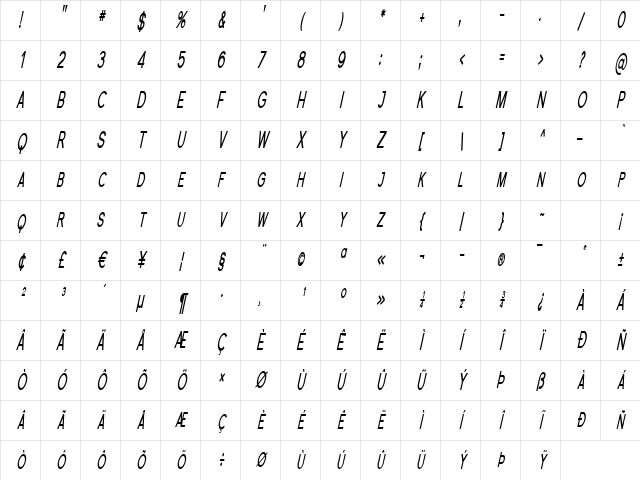
Florencesans SC Comp Bold Italic
Design Context for Florencesans SC Comp
Florencesans SC Comp is a composed and adaptable typeface that performs quietly and consistently across a wide range of design contexts. The slanted form adds forward momentum and visual energy. Its bold stroke weight gives it real presence on the page.
Pro Tip: Use Florencesans SC Comp for emphasis, pull quotes, and subheadings where its slanted energy can add rhythm to the layout.